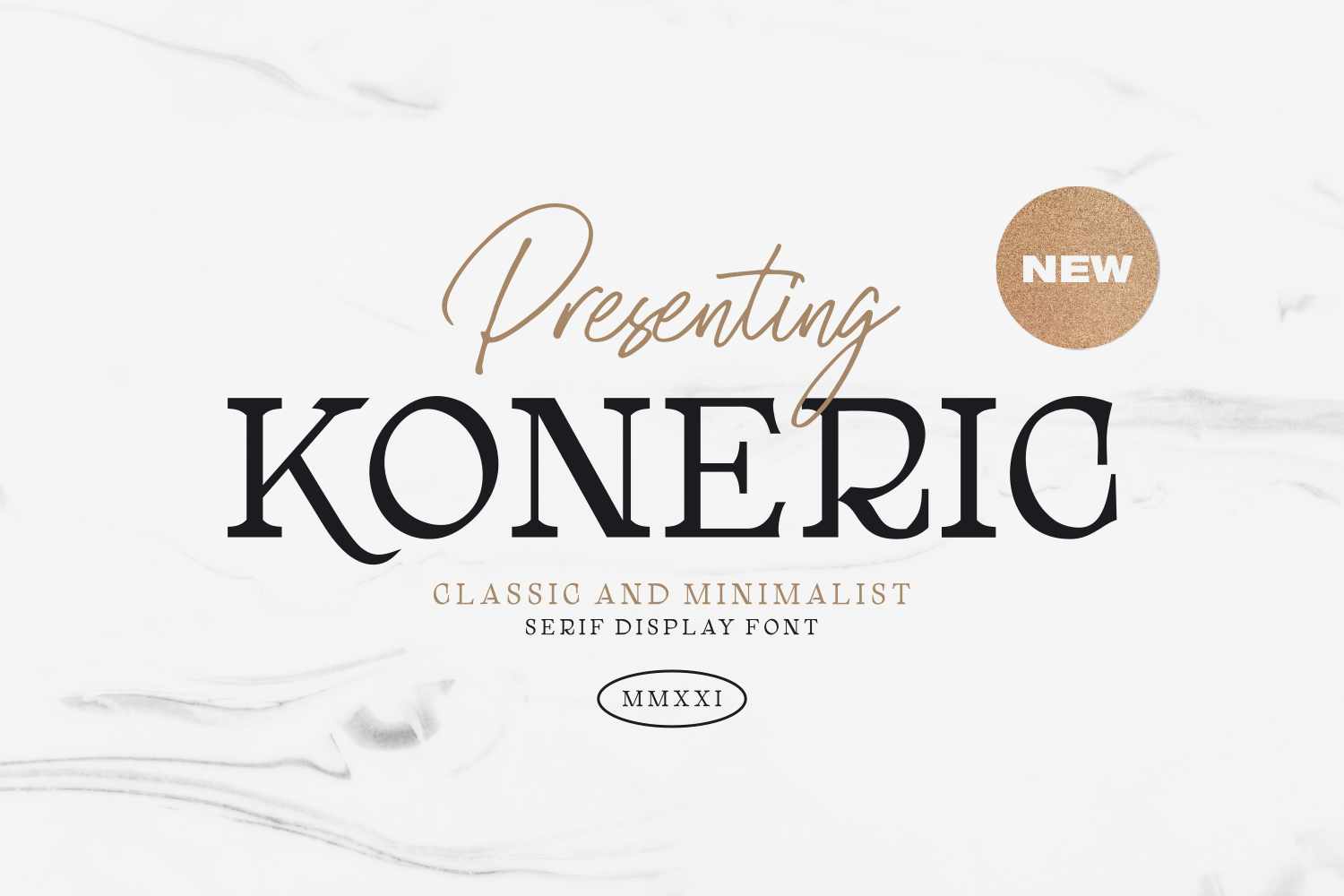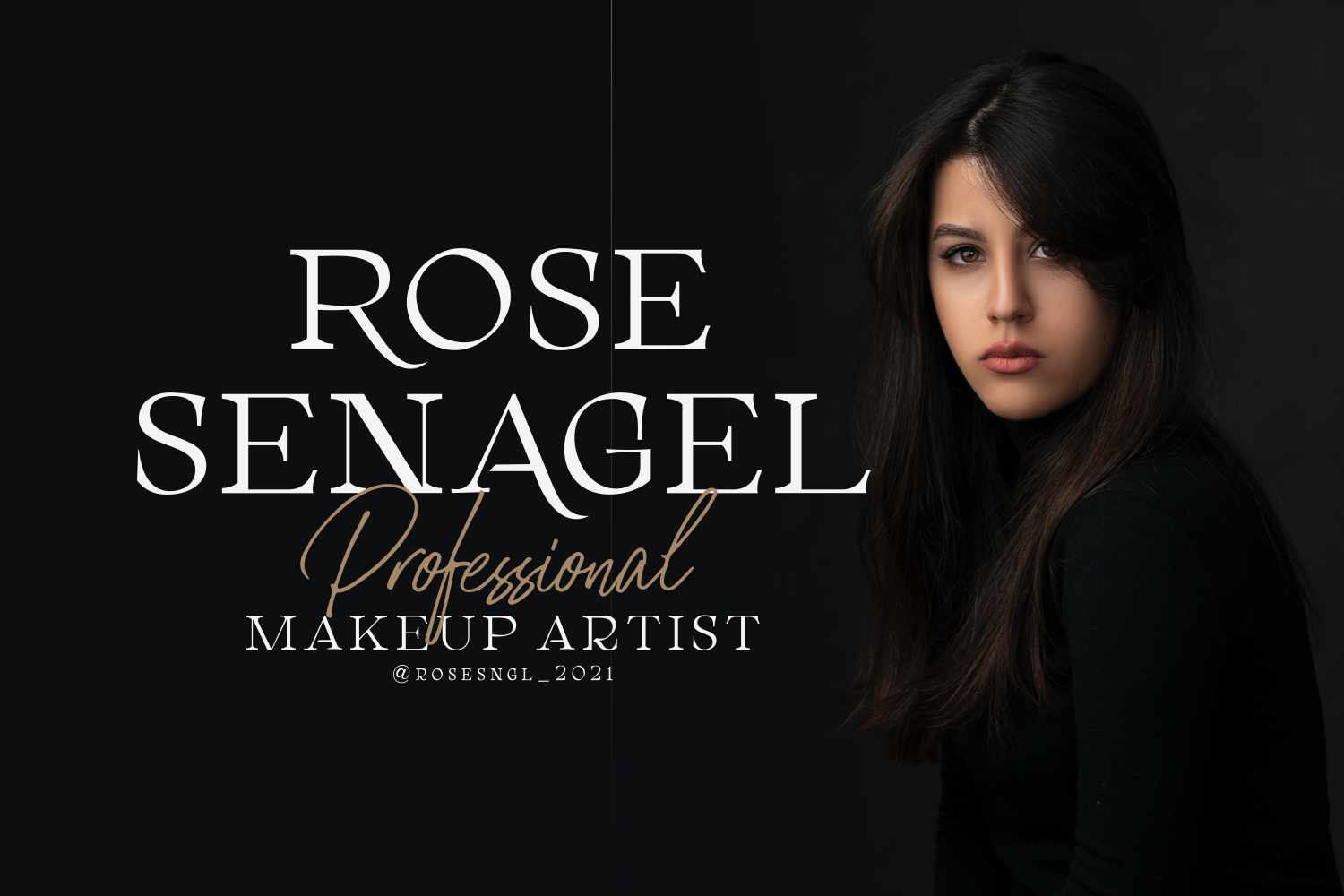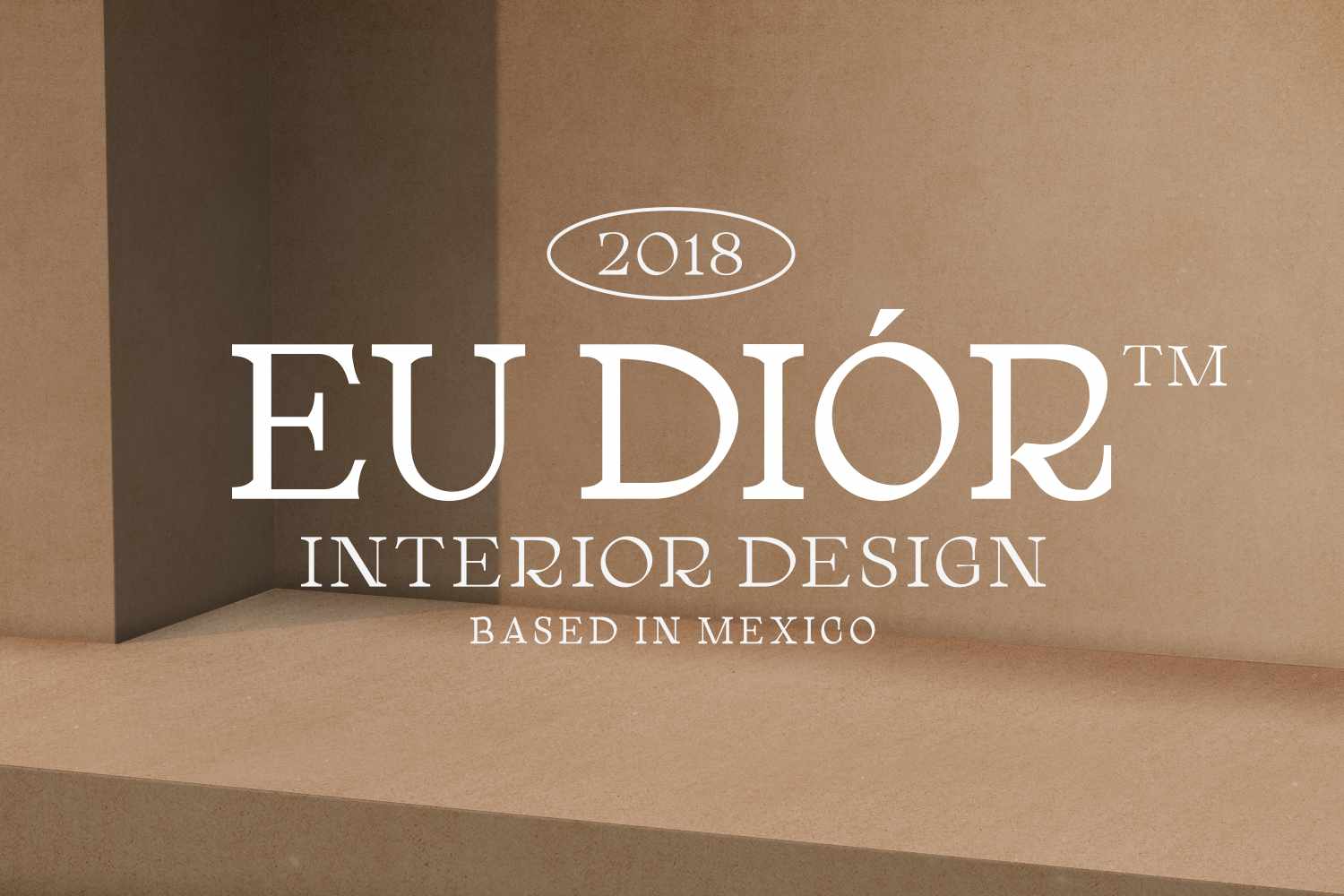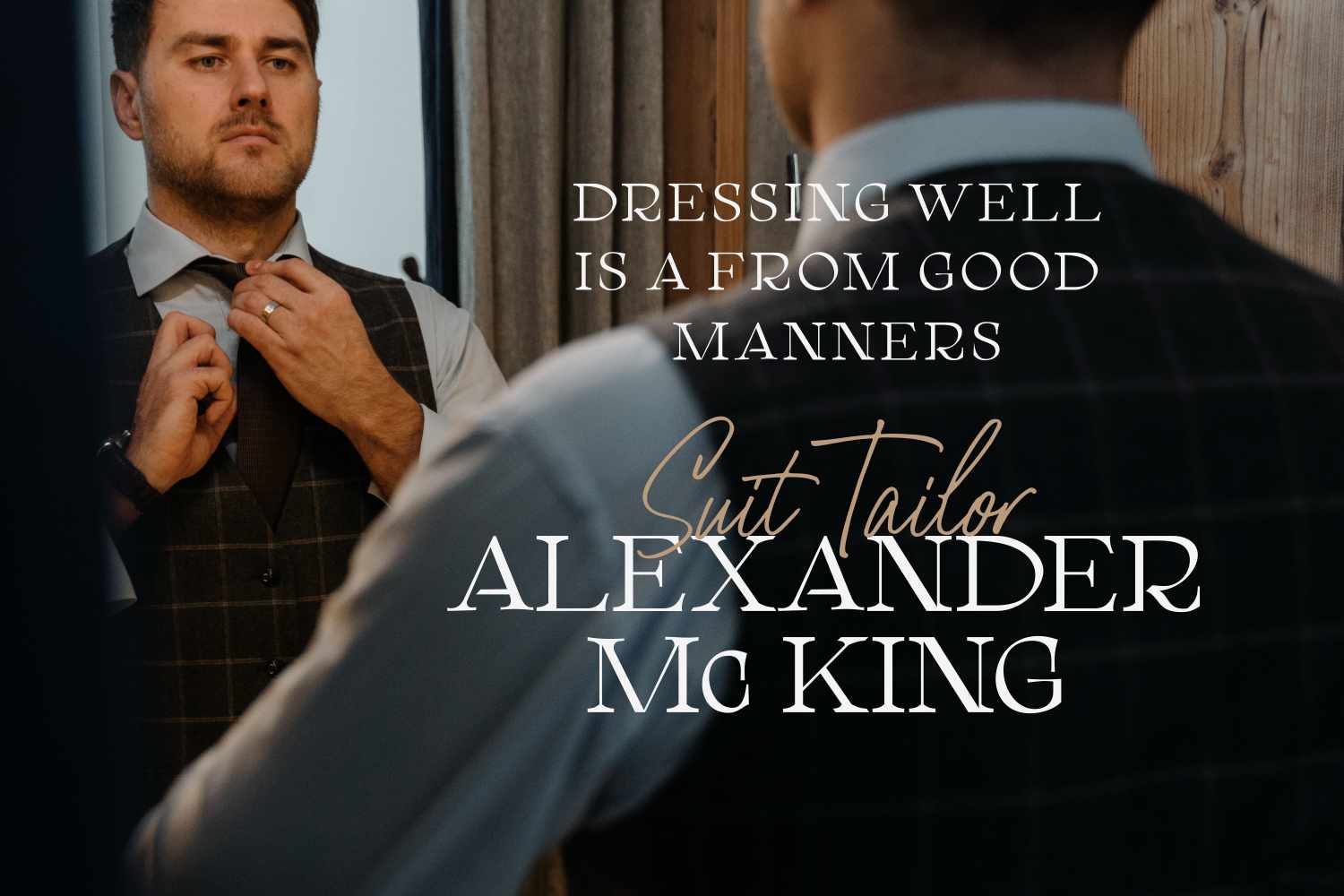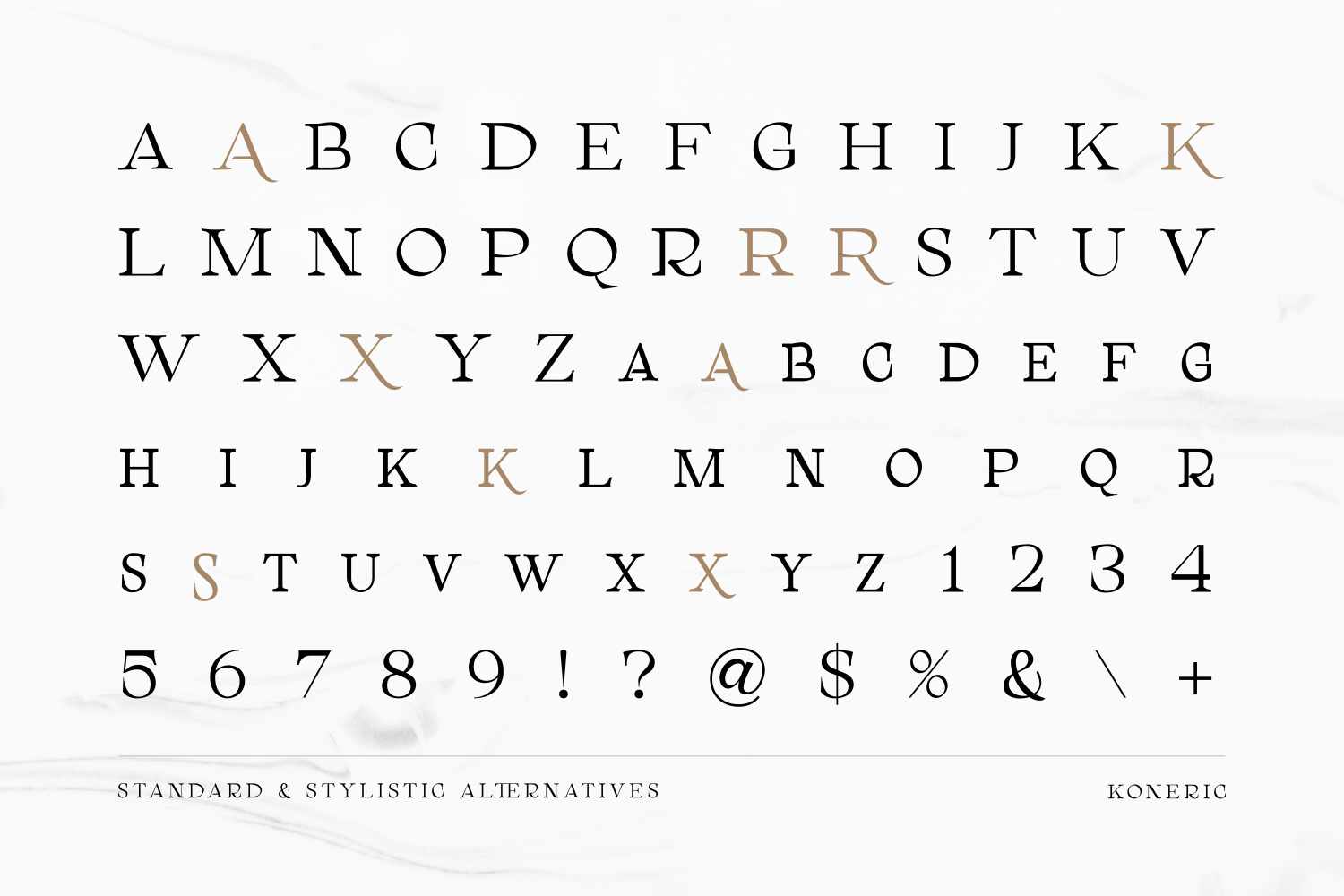
Koneric
Koneric is a classic serif display font that blends timeless elegance with minimalist sophistication. Designed to elevate branding, editorial layouts, and high-end creative projects, this font offers a refined structure with subtle contrast and sculpted curves. The signature features include clean serifs, unique alternates, and delicate details that provide visual interest while maintaining readability and harmony.
Perfect for fashion editorials, logos, product packaging, and upscale stationery, Koneric’s balance of tradition and modernity makes it a versatile tool in any designer’s toolkit. The stylistic alternates bring a creative edge, allowing custom touches across a wide range of applications. Whether you’re designing for a luxury brand or a personal portfolio, Koneric delivers an elevated aesthetic that leaves a lasting impression.